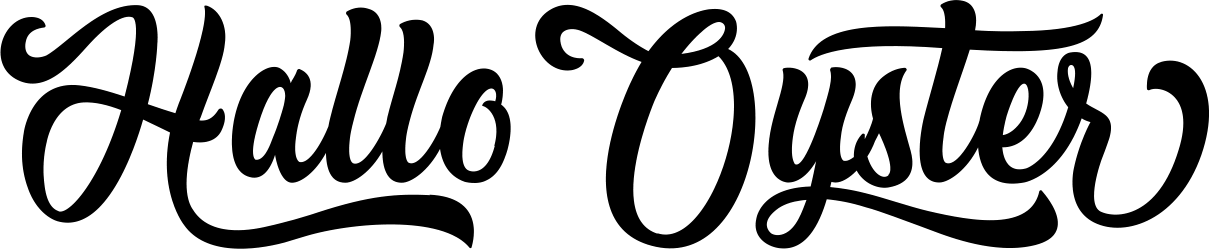
Hallo Oyster Font
Hallo Oyster font with its swash lines can make your design attractive and audience-friendly. If you are thinking of high sales of many products of your own cosmetics brands, be sure to use this in the packaging title, such as mascara and eyeliner.
It is also noteworthy that you can use lowercase letters in the packaging description. This retro and ‘ is one of the best examples for designing postcards, and classic and old-fashioned movie posters.